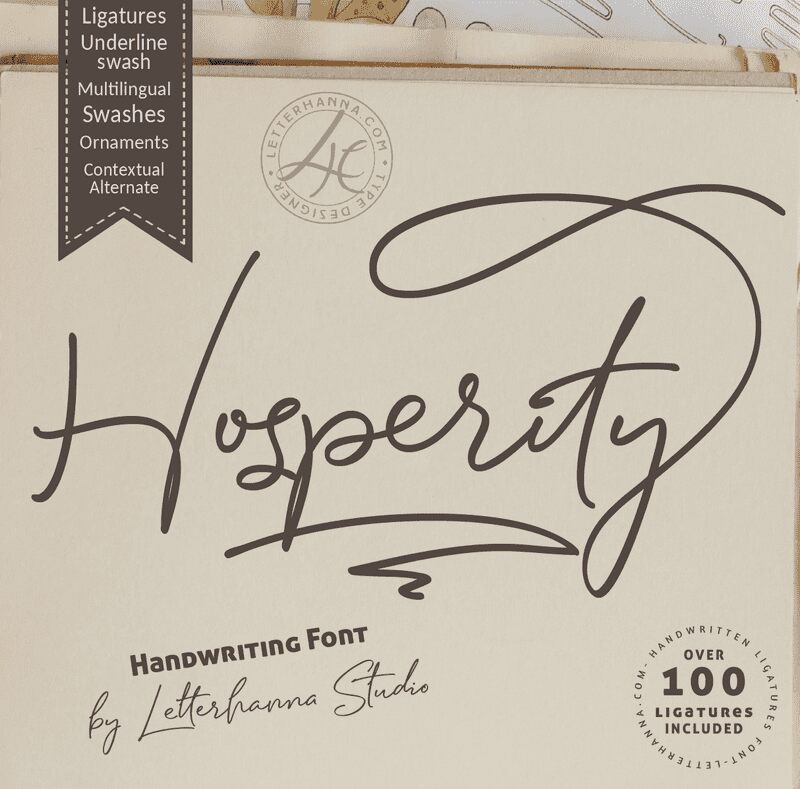
Hosperity, a captivating handwritten signature font crafted by Rinaldo Hasibuan, exudes a sense of elegance and authenticity. Its fluid, expressive strokes convey a refined and artisanal aesthetic, evoking a deeply personal touch. The font's natural flow and organic variations lend an air of exclusivity, making it well-suited for projects that require a distinctive and personalized touch.
Hosperity's versatility extends across a wide range of applications, from luxury branding and high-end product packaging to wedding invitations and event materials. Its ability to blend seamlessly with both modern and traditional design elements makes it a versatile choice for designers seeking to create visually striking and memorable compositions. Whether used for logo design, editorial content, or any application where a handwritten aesthetic is desired, Hosperity's unique charm is sure to captivate and engage the audience.
Hosperity
Hosperity is a Stylish handwritten font, with a natural & stylish flow. Hosperity Font is perfect for many different project such as logos & branding, invitation, stationery, wedding, social media, advertisements, product packaging, product designs, label, photography, watermark, special events or anything.